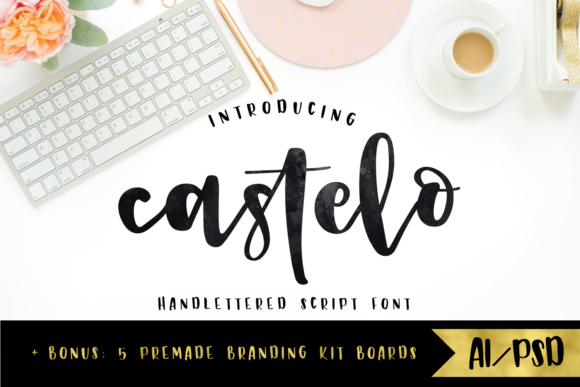
Prepare to unleash your creativity with the Castelo Script Font, an exquisite hand-lettered calligraphy script that captivates and enchants. Dive into the world of imagination and artistic expression with a font designed to make your designs stand out.
With its bold, sweeping strokes and enchanting curves, the Castelo Script Font embodies elegance and timeless beauty. Each letter is a work of art, crafted with precision and care to ensure your designs radiate charm and sophistication.
Unleash your imagination and create stunning logos that command attention, eye-catching social media posts that captivate your audience, and wedding invitations that evoke a sense of romance and elegance. The possibilities are endless with the Castelo Script Font.
Discover the versatility of the Castelo Script Font and transform your creative projects into masterpieces. Let your words dance on the page or screen with a font that speaks volumes about your impeccable taste and artistic flair.
Immerse yourself in the world of design and explore the boundless possibilities that await you. The Castelo Script Font is your key to unlocking a world of creativity and inspiration. Embrace the art of lettering and watch your designs flourish with beauty and elegance.